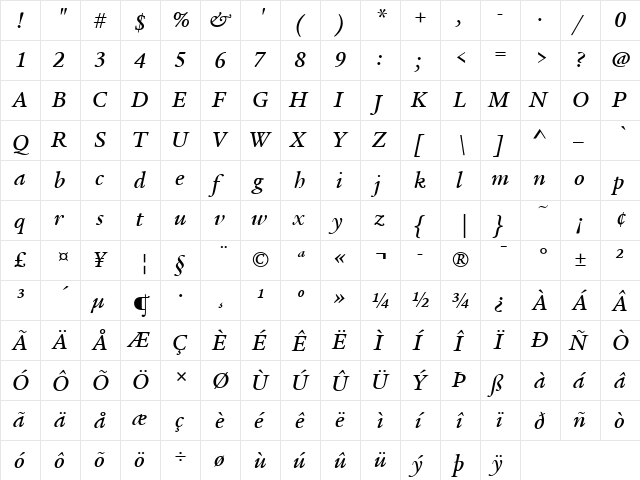
ITCLegacySerif LT Medium Italic Font Preview
Design Context for ITCLegacySerif LT Medium Typeface
ITCLegacySerif LT Medium brings classic typographic sensibility to the table — its serifs and measured letterforms reflect centuries of print heritage. Its italic angle brings a sense of urgency and motion to the letterforms. Its slender proportions lend an understated elegance to any composition.